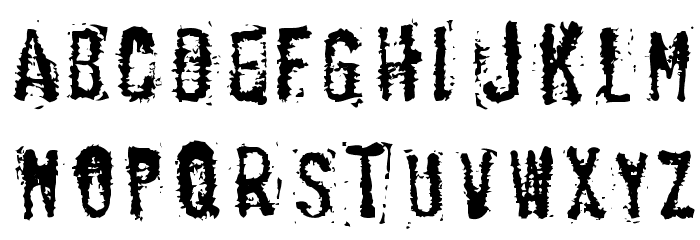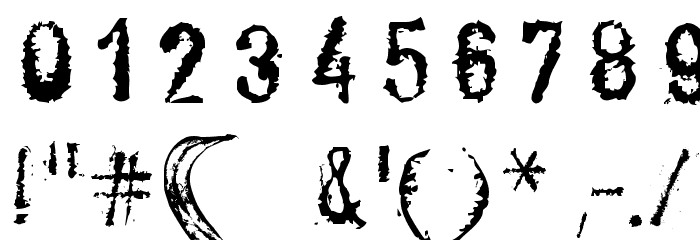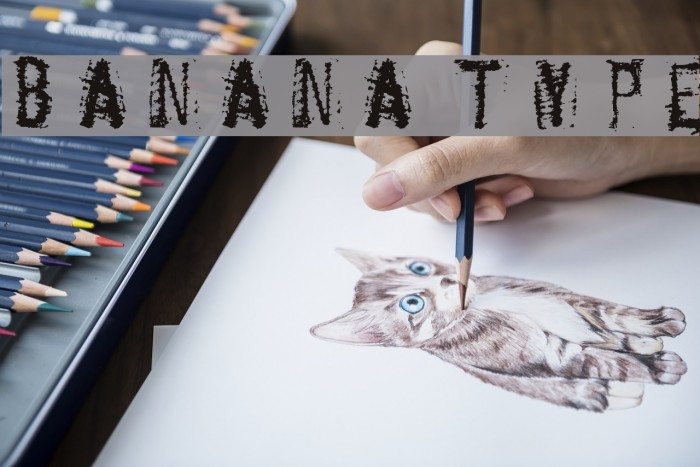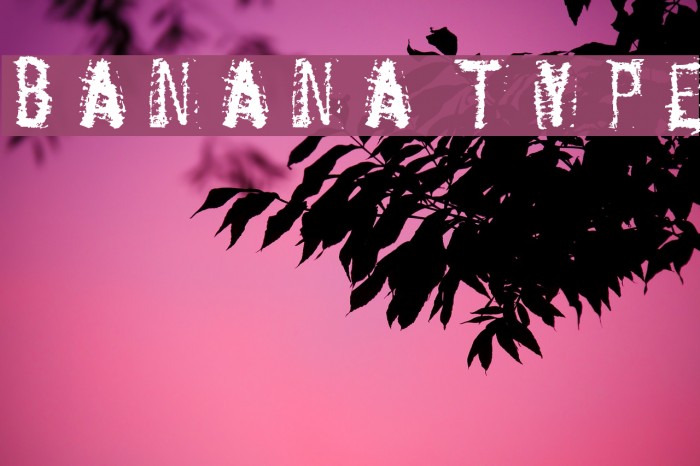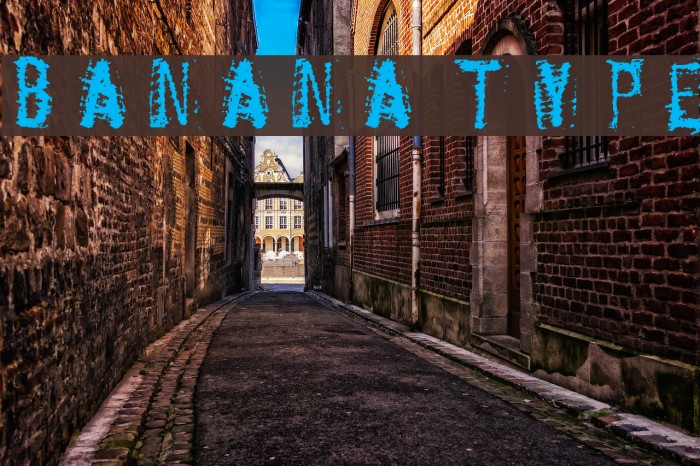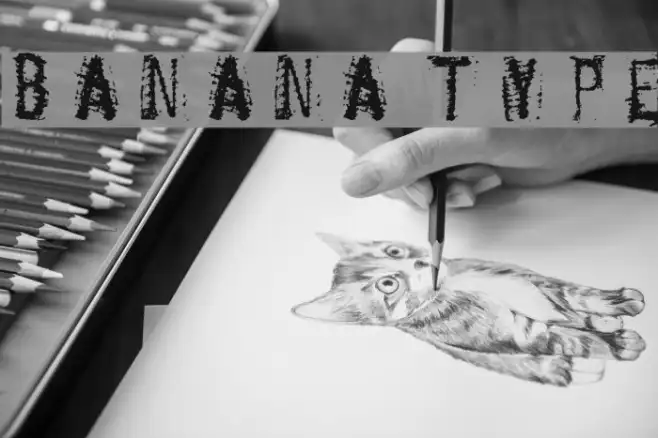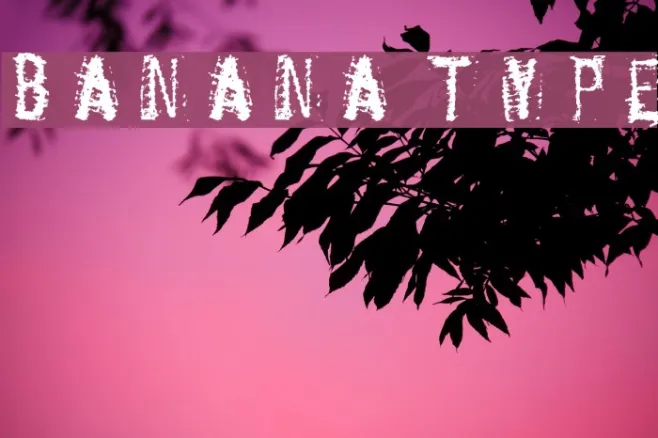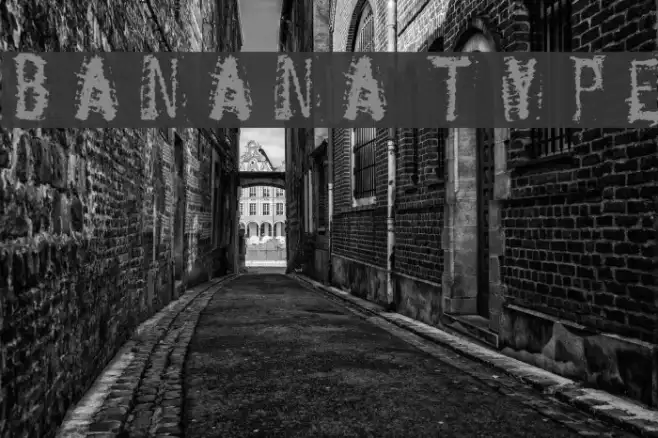
BANANA TYPE Font
This font features a distressed, grunge style with a rough, textured appearance. Each character appears as if it has been stamped or printed with a worn-out ink pad, giving it an edgy and raw aesthetic. The uppercase and lowercase letters maintain a consistent height, while the numbers and special characters follow the same rugged design. The irregular edges and varying thickness of the strokes add to its unique, handcrafted look, making it ideal for projects that require a bold, eye-catching statement.
A distressed, grunge-style font with a rough, textured appearance.
- Proposed Projects: Ideal for album covers, posters, urban-themed designs, and any project needing a bold, edgy look.
- Overall Style: Grunge, Edgy
- Use Case: Headlines, Posters, Branding